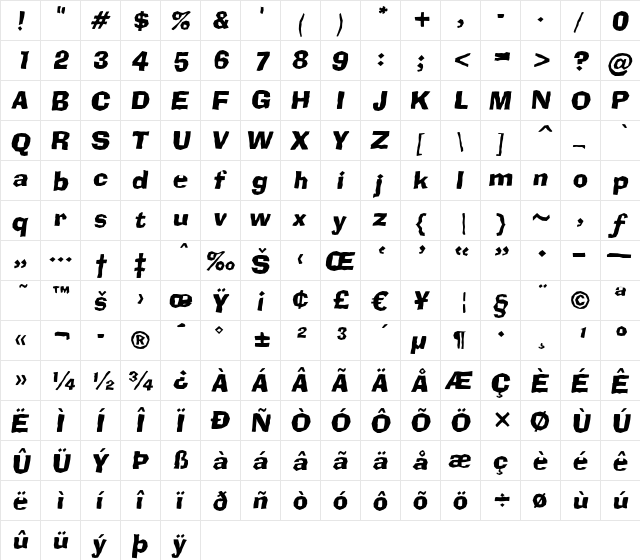
a_Broker Italic
| Designer | W.Chufarofsky & M.Slutsker |
Design Context for a_Broker Typeface
a_Broker offers clean, dependable letterforms without strong stylistic allegiance, making it a practical choice for designers who need flexibility. The dynamic lean of this cut emphasises speed and emphasis in any layout.